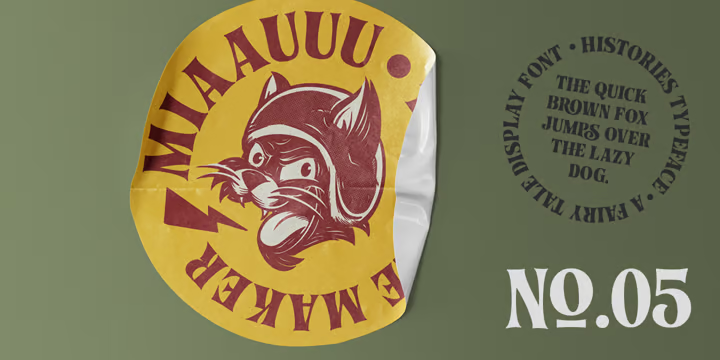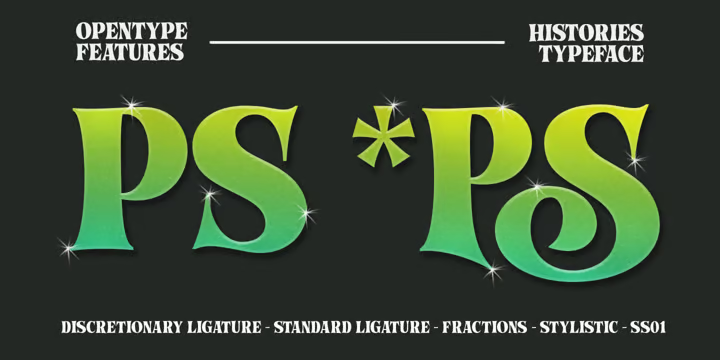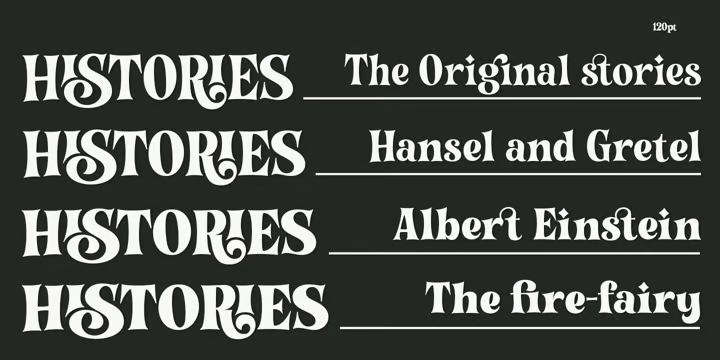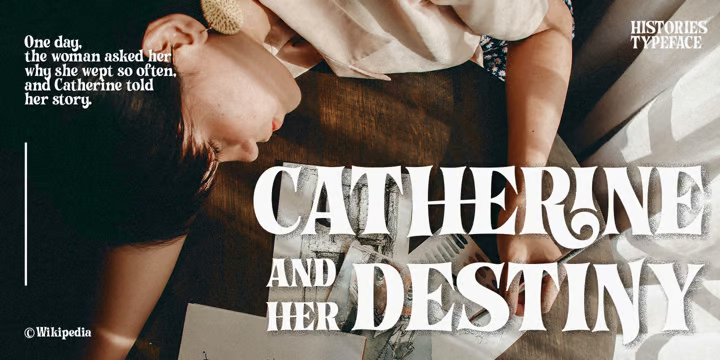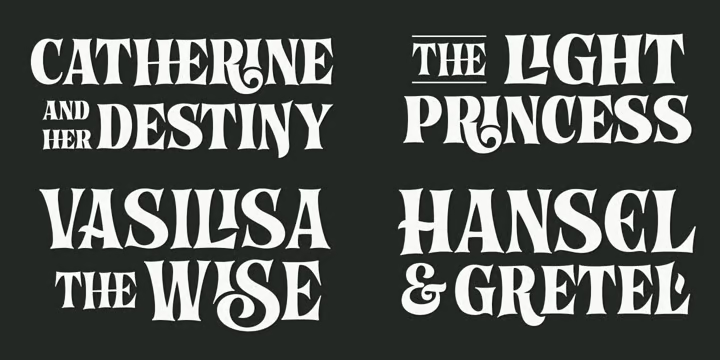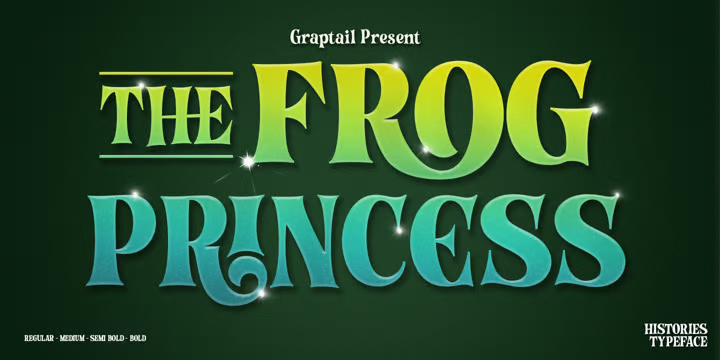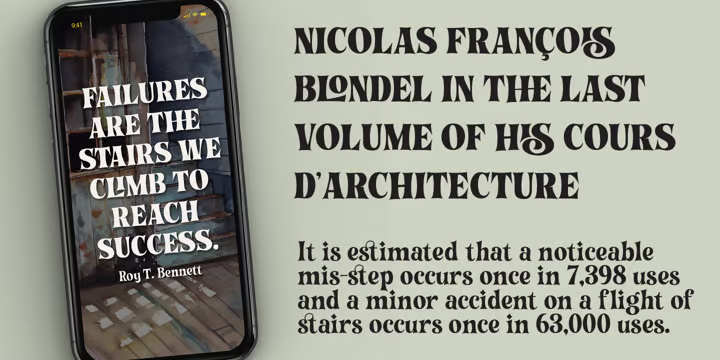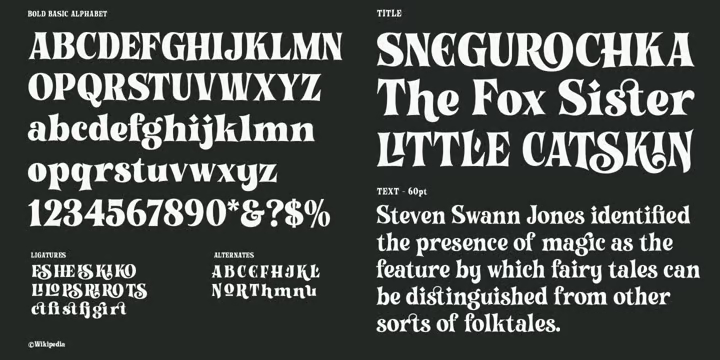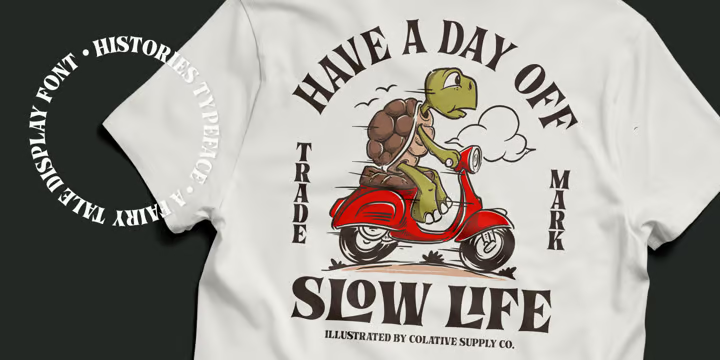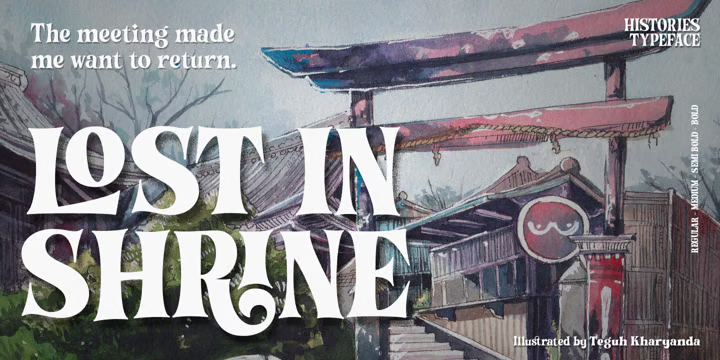
Histories Font
Since the beginning, “Histories” has been inspired by the shape of the letters displayed on the cover of fairy tale books or animated film covers. Likewise with the naming of the font “Histories” so that the message of the letters is conveyed. And this stylistic combination should also be reflected in the lowercase set which also allows to open up a spectrum of possible uses. Basic calligraphy represents a solid basis for the development of lowercase glyphs, ensuring proper interaction with uppercase letters. “Histories” features multiple ligatures that combine the playerful structure with a more attractive feel. With glyphs, it provides a wide range of uses across ligature combinations, alternate marks, pre-caps, assortments and connectors; each of which can be accessed via Open Type.
With multiple weights, Histories Font can carry a whole identity — logo, headings, body copy and captions — consistently across print and web.